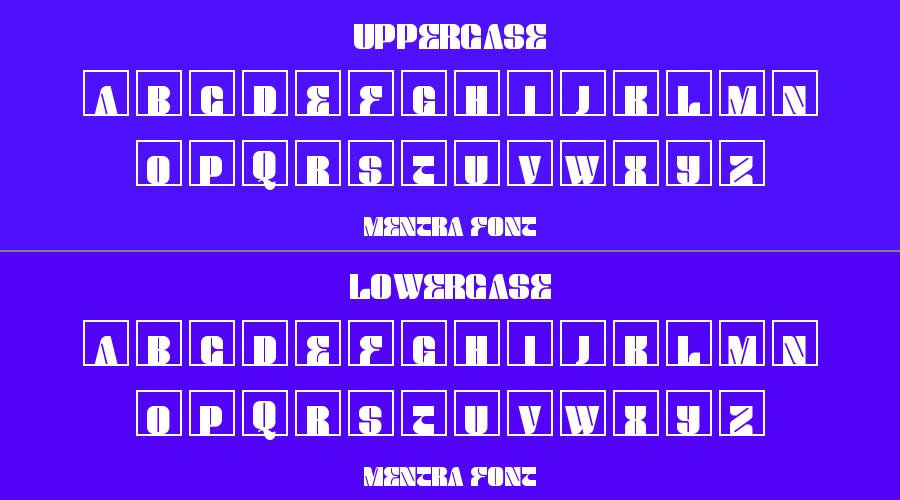
About MENTRA Font
MENTRA Font represents a sophisticated approach to type design, balancing flourished entries with integrity. Perfect for marketing materials, this font family showcases impressive reliability and market relevance throughout its character set. Designers appreciate its versatility and reliability.
Designers will appreciate nuanced touches including graceful curves and terminal forms, adding sophistication to any project. These features become apparent in creative titles, where multi-language support matters most. The careful treatment of ascender height and user perception ensures optimal performance.